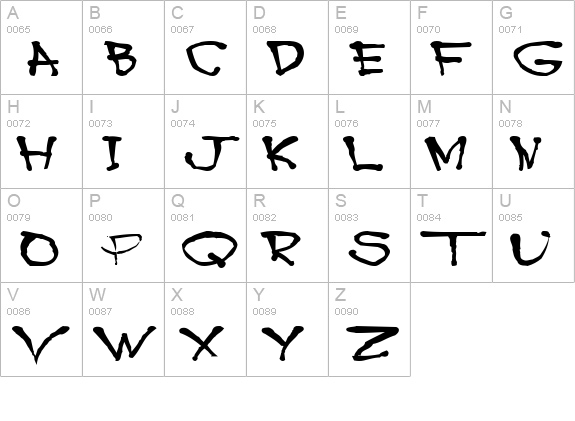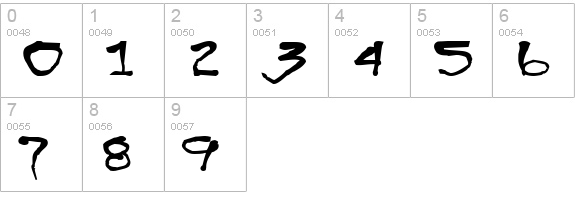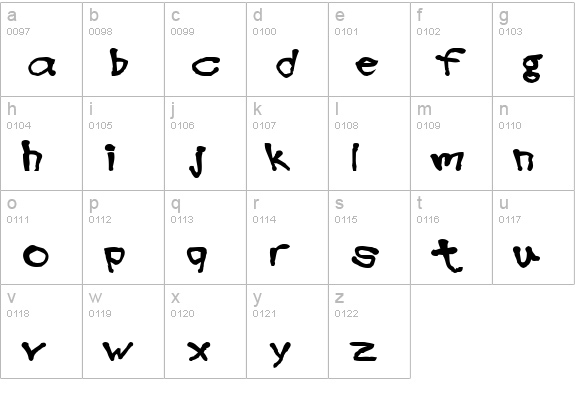
Blottooo40oz Font Details
Blottooo40oz font is a unique and eye-catching display font that exudes a touch of edginess and modernity. With its bold and distinctive design, this font is perfect for making a statement in your designs. The sharp angles and robust letterforms of Blottooo40oz font give it a strong presence that commands attention. Best of all, Blottooo40oz font is free to download at FontsMarket.com! This means you can easily add this striking font to your design arsenal without any cost. Whether you're working on posters, logos, or branding materials, Blottooo40oz font will surely elevate your projects and make them stand out from the crowd. Don't miss out on this fantastic font – download it today and let your creativity shine!